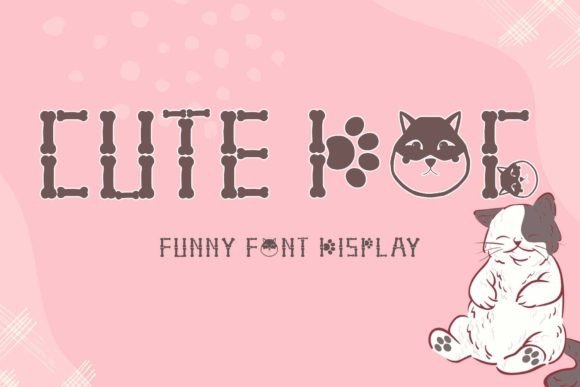
Journey into the whimsical realm of Cute Dog Font, a display font that captures the infectious joy and charming nature of our canine companions. This extraordinary creation from yogaletter6 is not just a font; it's a celebration of the unbreakable bond between humans and dogs. Each character is meticulously designed with delightful bones, adorable dog heads, and playful paw prints, transforming your words into a visual symphony of canine cuteness.
Indulge in the versatility of Cute Dog Font, a font that effortlessly adapts to a myriad of projects. Let your imagination run wild as you create captivating birthday banners that burst with joyous energy, greeting cards adorned with heartwarming messages, or personalized gifts etched with names that dance and paws that patter. The possibilities are endless, just like the love we share with our furry friends.
If you're a dog lover, a creative professional, or simply someone looking to add a touch of whimsy to your designs, Cute Dog Font is your perfect companion. Its playful charm will infuse your projects with warmth and personality, making them irresistibly cute and utterly unforgettable. Embrace the magic of Cute Dog Font today and let your designs wag with happiness!